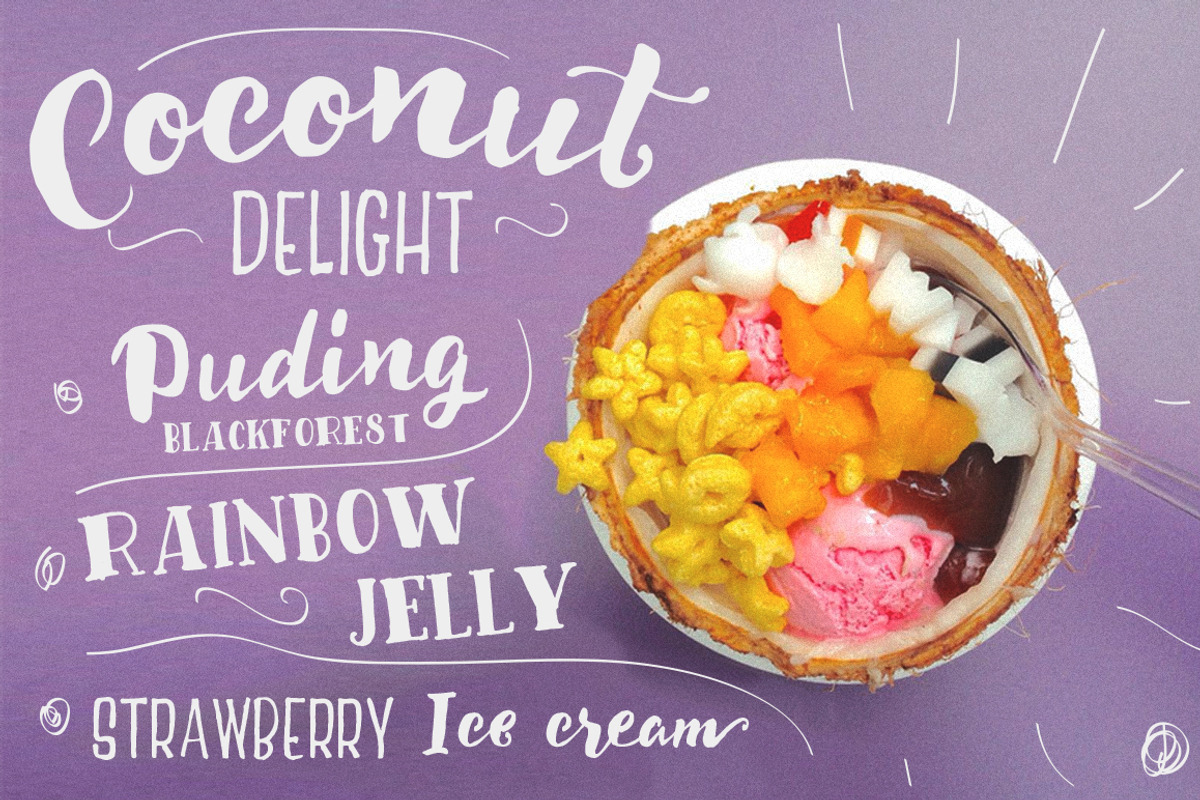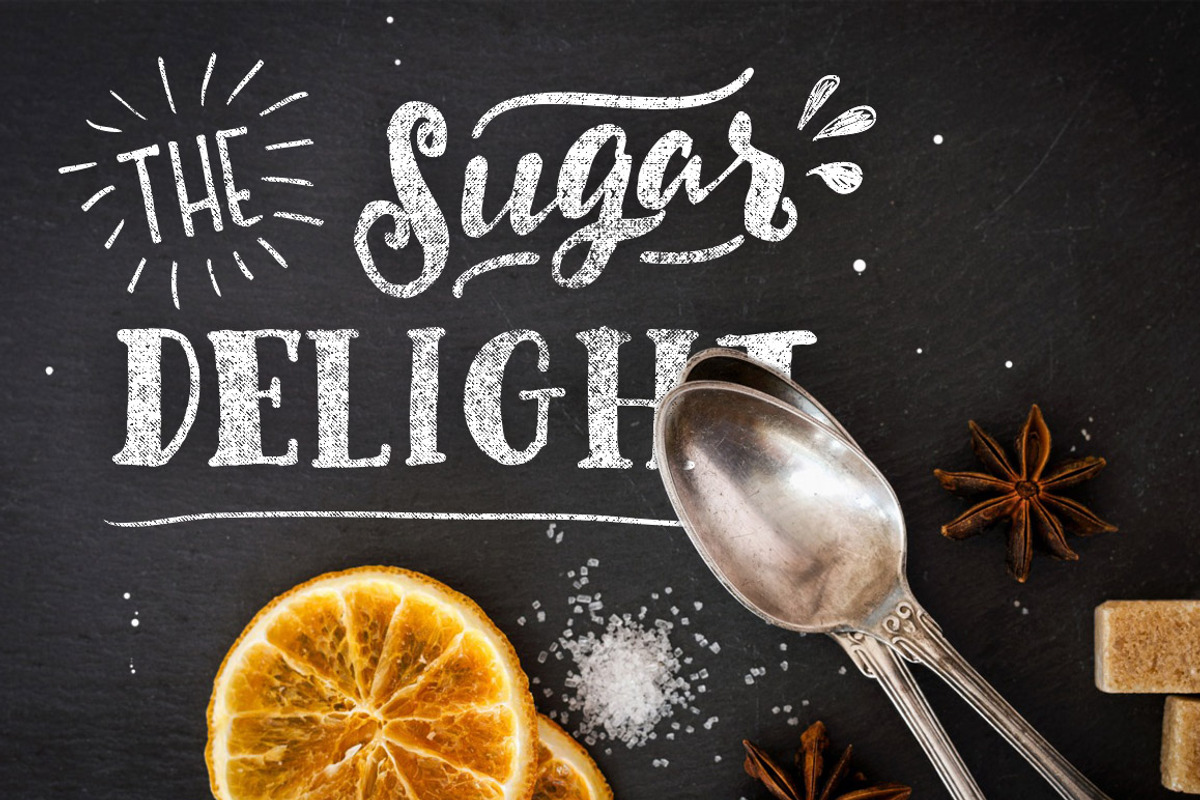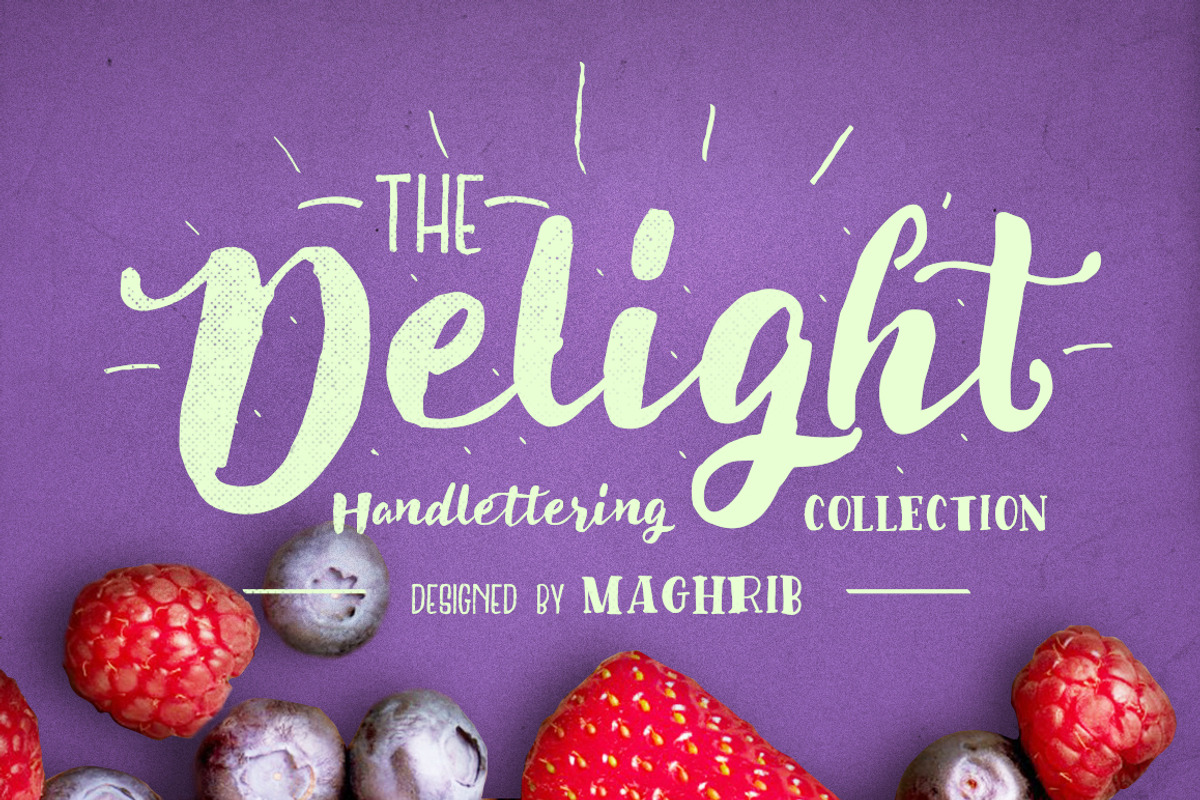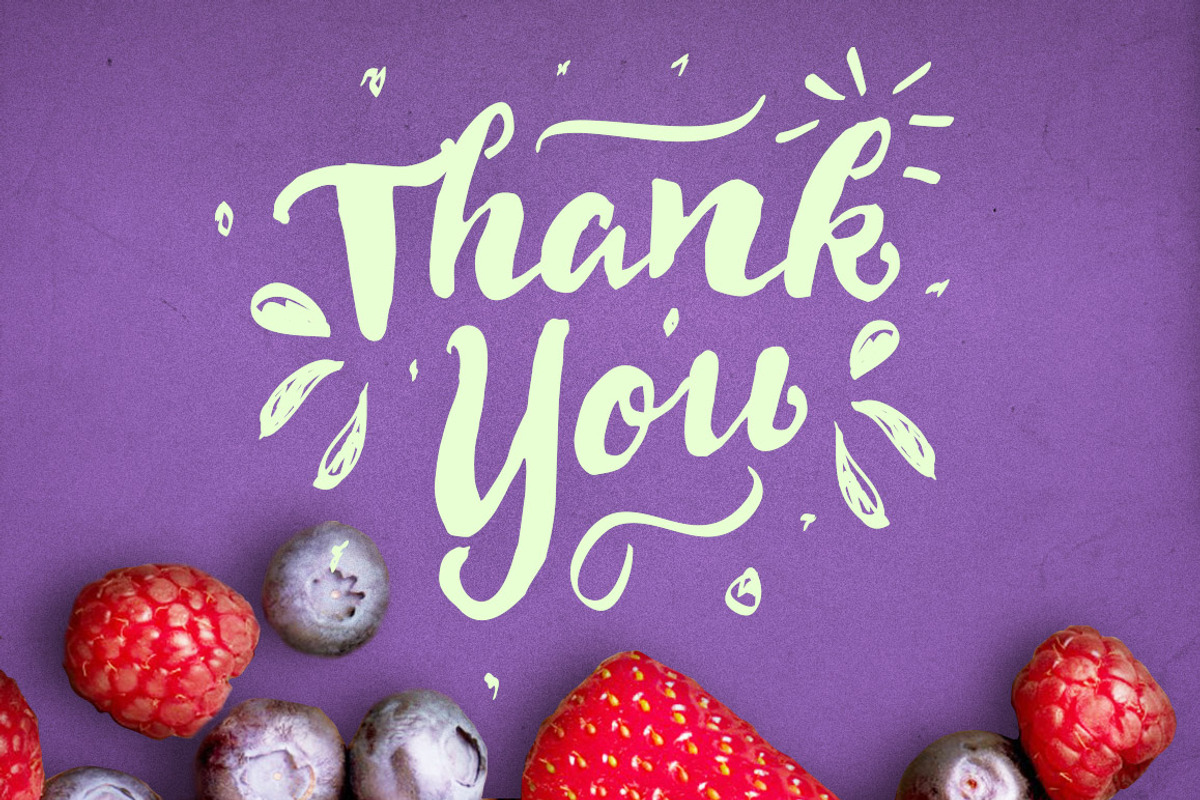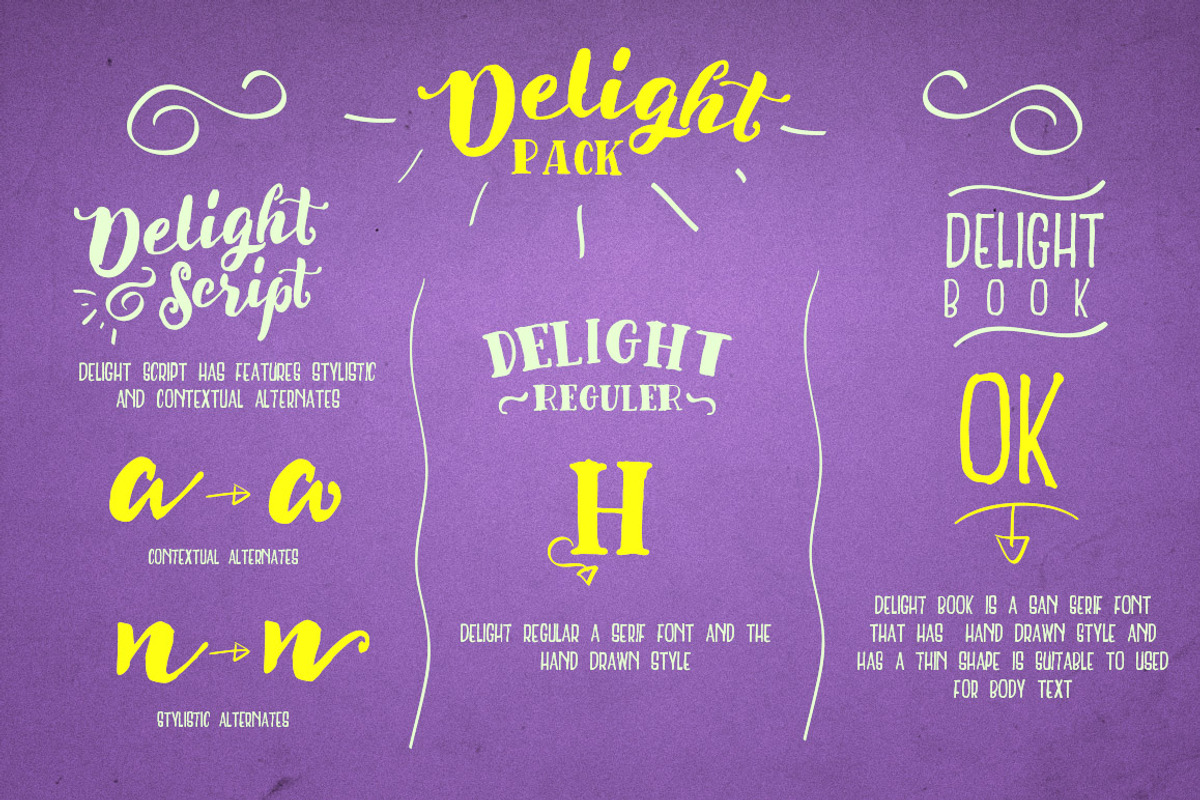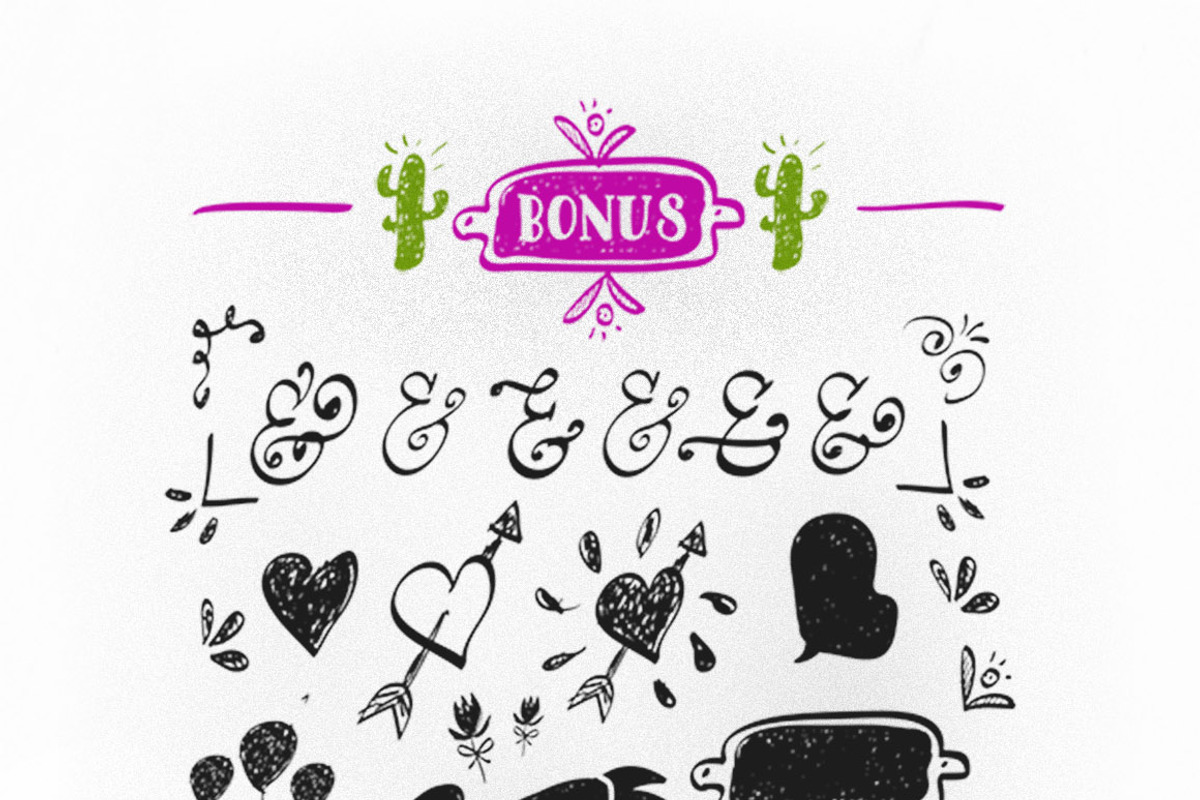
Delight Font Pack & Extra
Delight Font Pack & Extra by maghrib is a font selected for branding, posters, packaging, typography.
- Delight type family is a lovely handlettering, It contains three different hand drawn With this set and a little bit of love and care it is
- Delight type is very best choice fonts for : Wedding Invitation, quotes, Posters, Logos, Print Ads, Digital Ads, Promotion Product etc Styli
- Delight Regular
- Delight Book Regular
- Delight Script Regular
Delight Font Pack & Extra by maghrib fits naturally into Branding, posters, packaging, typography.